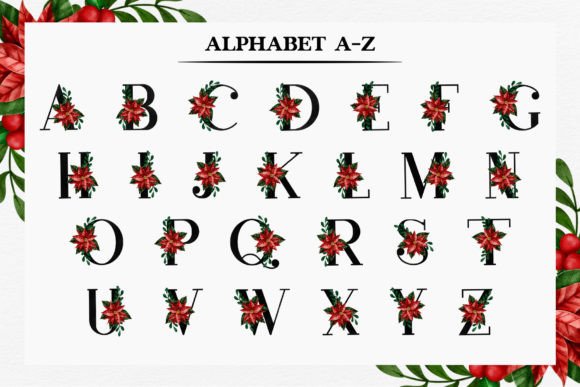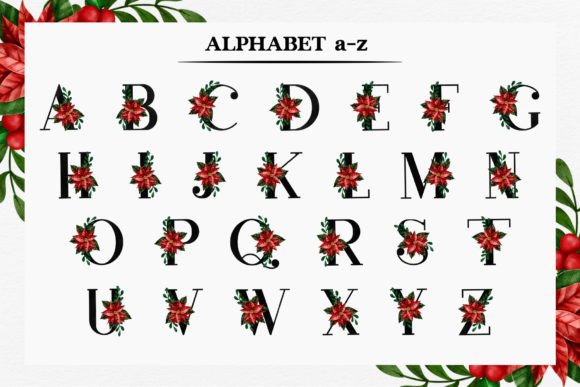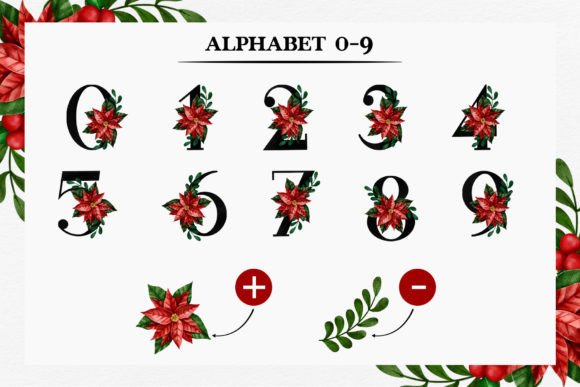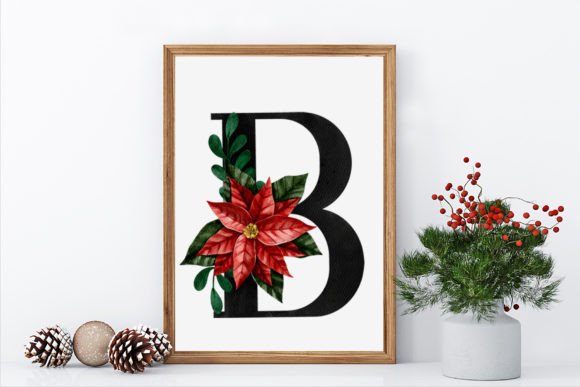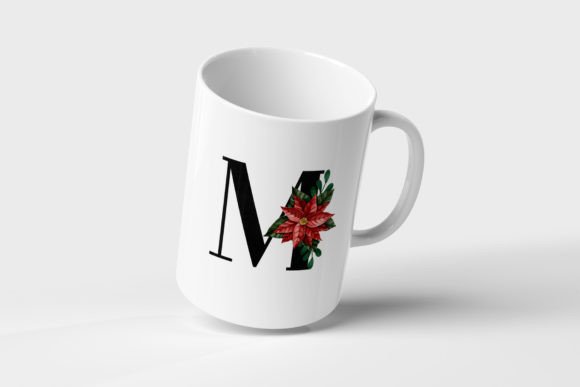
The Magic of Floral Christmas Font: A Designer’s Delight
It’s happened to the best of us – you’re working on a project, and suddenly, you’re stuck. The design is almost there, but something’s missing. You’re scrolling through font after font, and nothing seems quite right. That’s exactly what happened to me when I was working on a Christmas-themed invitation. I wanted something that captured the essence of the season – warm, inviting, and full of character. That’s when I stumbled upon the Floral Christmas Font, and let me tell you, it was love at first sight! 💕
So, what makes Floral Christmas Font so special? Here are a few things I absolutely love:
- ✨ Authentic Watercolor Feel: The font has a beautiful, authentic watercolor texture that adds a touch of elegance to any design.
- ✅ Monogram Color Font: The fact that it’s a color font (Opentype-SVG) means I can use it in programs like Photoshop and Illustrator, and get the best details out of it.
- 🎉 Versatility: From gorgeous invitations to beautiful stationary art, eye-catching social media posts, and cute greeting cards – the possibilities are endless!
Of course, no font is perfect, and there are a few small quirks to be aware of:
The Story Behind Floral Christmas Font
Floral Christmas Font was designed with love and care by a team of creative designers who wanted to capture the magic of the holiday season. Inspired by traditional watercolor techniques and modern digital art, this font is the perfect blend of classic and contemporary.